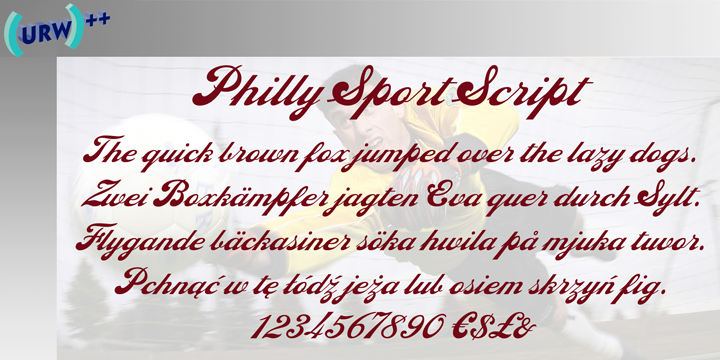
Looking to inject some dynamic energy and a strong, athletic vibe into your designs? Philly Sport Script Font Free Download offers an exciting opportunity to explore a typeface brimming with character. It's crucial to remember, however, that while a Philly Sport Script Font Free Download might be available for personal and testing purposes, a commercial license is required for any professional or revenue-generating projects. This ensures legal compliance and provides essential support to the talented font designers.
The Philly Sport Script Font is exceptionally well-suited for projects that demand a sense of movement, team spirit, and a bold, energetic aesthetic. Its often flowing yet impactful script style, reminiscent of classic sportswear or team jerseys, makes it an excellent choice for sports branding, team logos, and athletic apparel design. It's ideal for event posters for sporting events, fan merchandise, and sports magazine headlines where a sense of action and excitement is desired. Furthermore, consider Philly Sport Script Font for gaming titles, YouTube channel branding for sports content, and social media graphics that need to convey dynamism and passion. Its distinctive character also lends itself well to school spirit wear and local sports club promotions.
What makes the Philly Sport Script Font so exciting is its inherent ability to evoke the thrill of competition and the camaraderie of a team. It often features strong connecting strokes, a sense of speed, and a confident stance that sets it apart from more traditional scripts. This characteristic allows it to communicate enthusiasm, strength, and a winning attitude, making your message resonate with an audience that appreciates boldness and athleticism. It’s a font that doesn't just display text; it embodies a competitive spirit, adding a layer of energetic flair and powerful charm to any creative endeavor. Its unique aesthetic ensures your work will stand out with undeniable vigor and a memorable impact.
The Philly Sport Script Font family typically focuses on delivering its strong, unique stylistic elements. You'll often find a powerful Regular weight, which might be complemented by specific bold variations to enhance its impact. Due to its script nature, the family might also include unique ligatures, stylistic alternates, or swashes that allow for highly customized and authentic handwritten-style compositions, providing additional creative options for crafting truly unique and dynamic typographic displays.